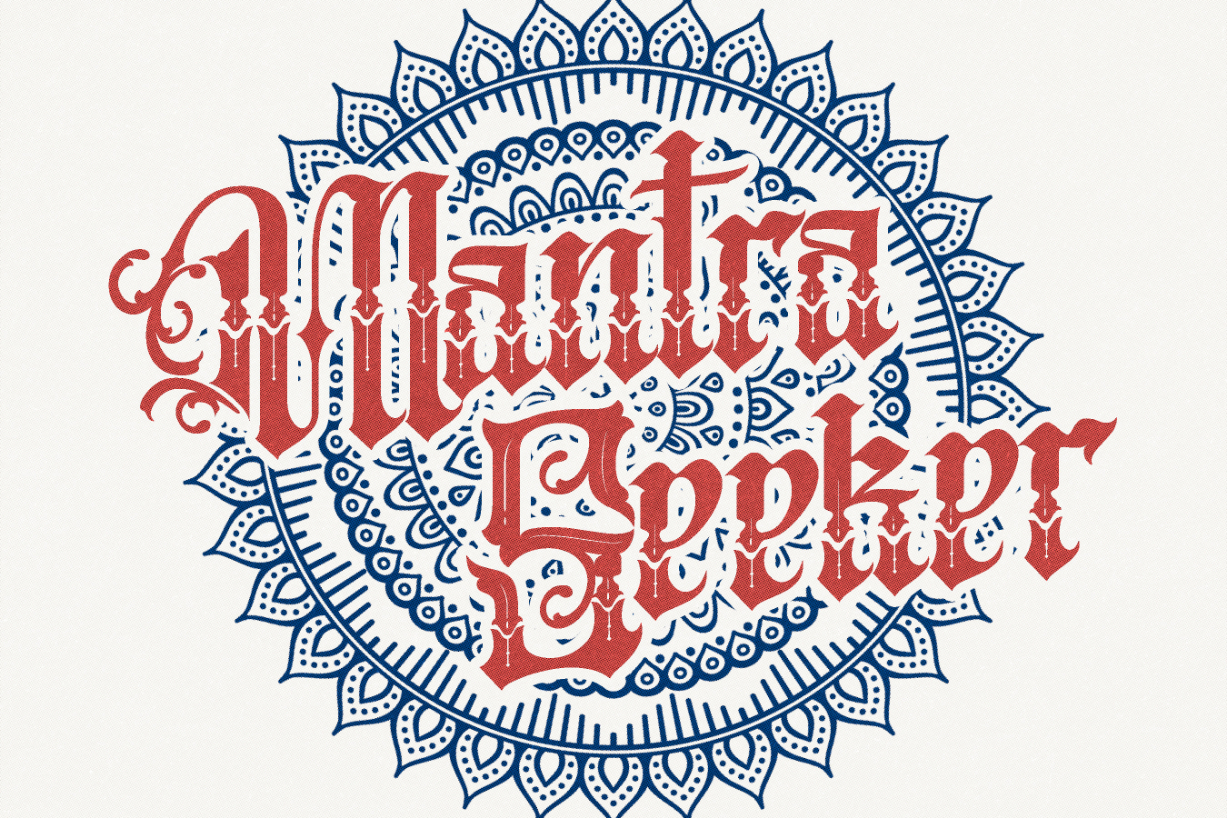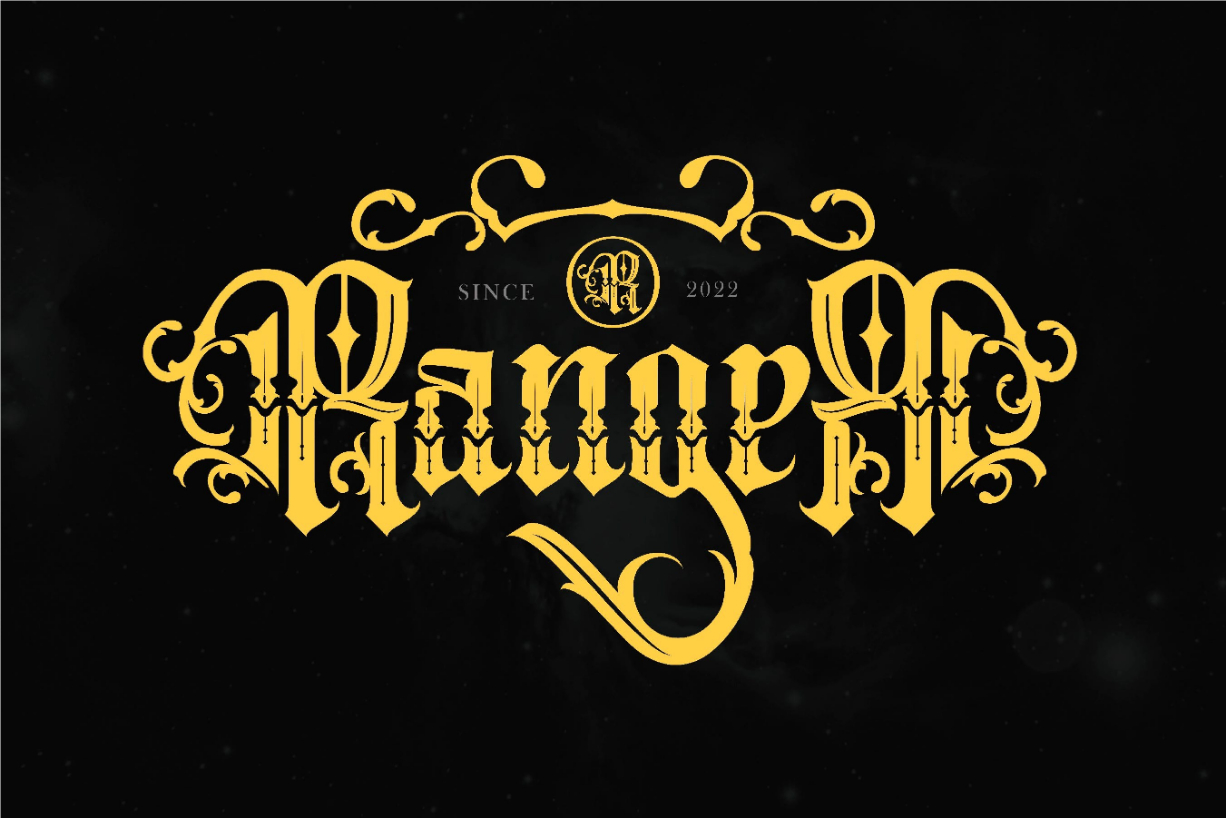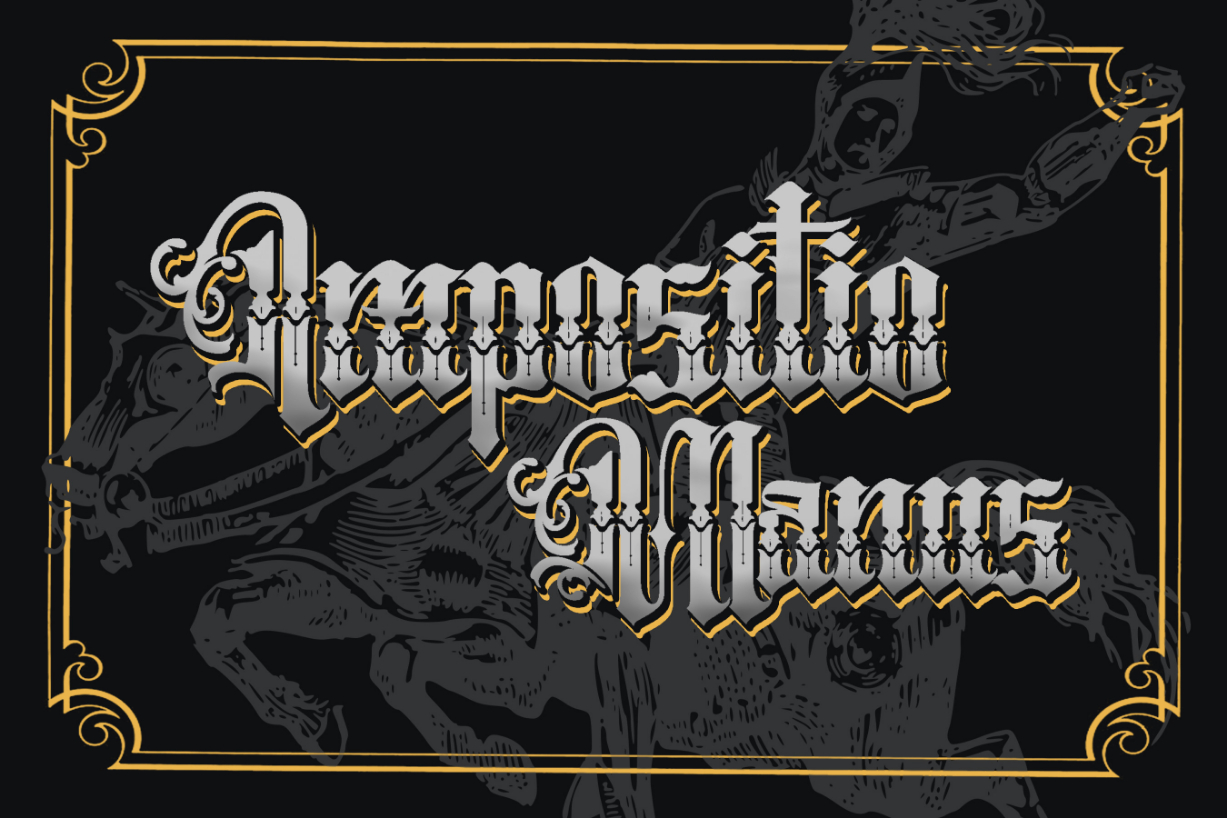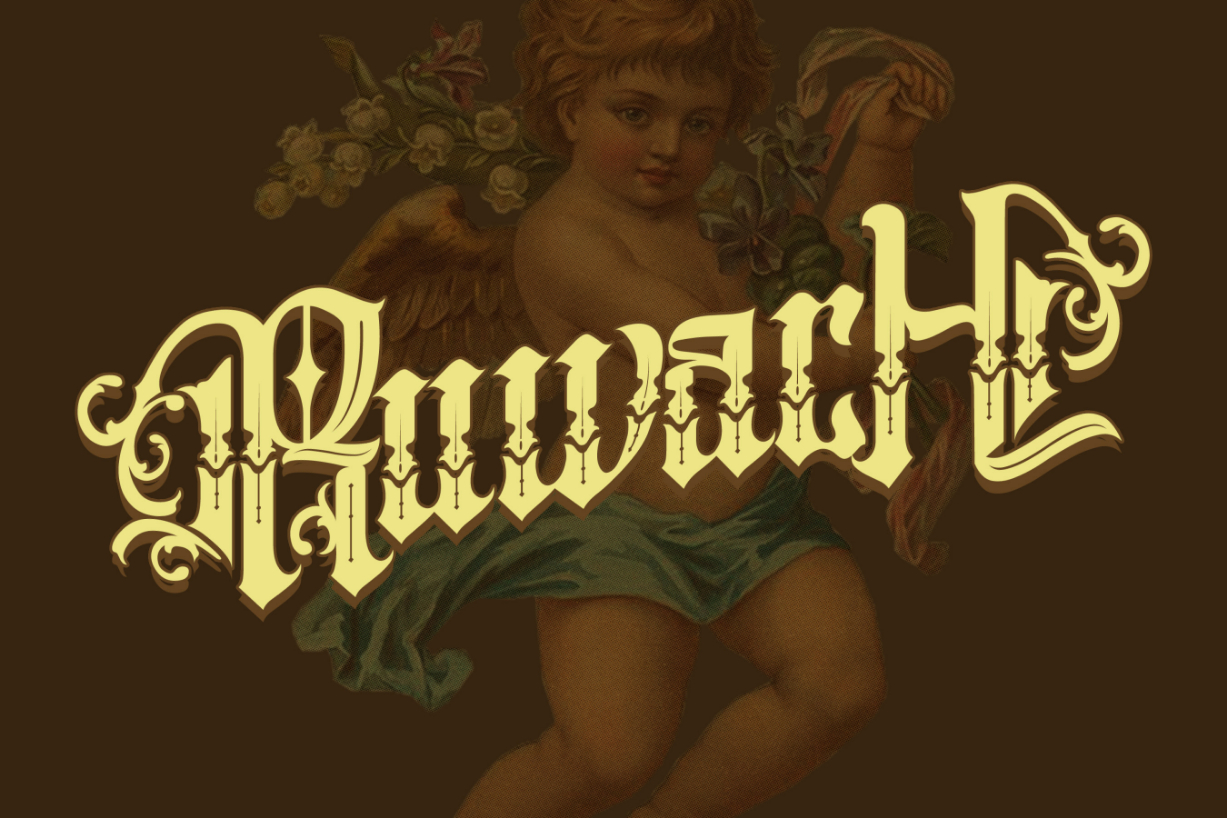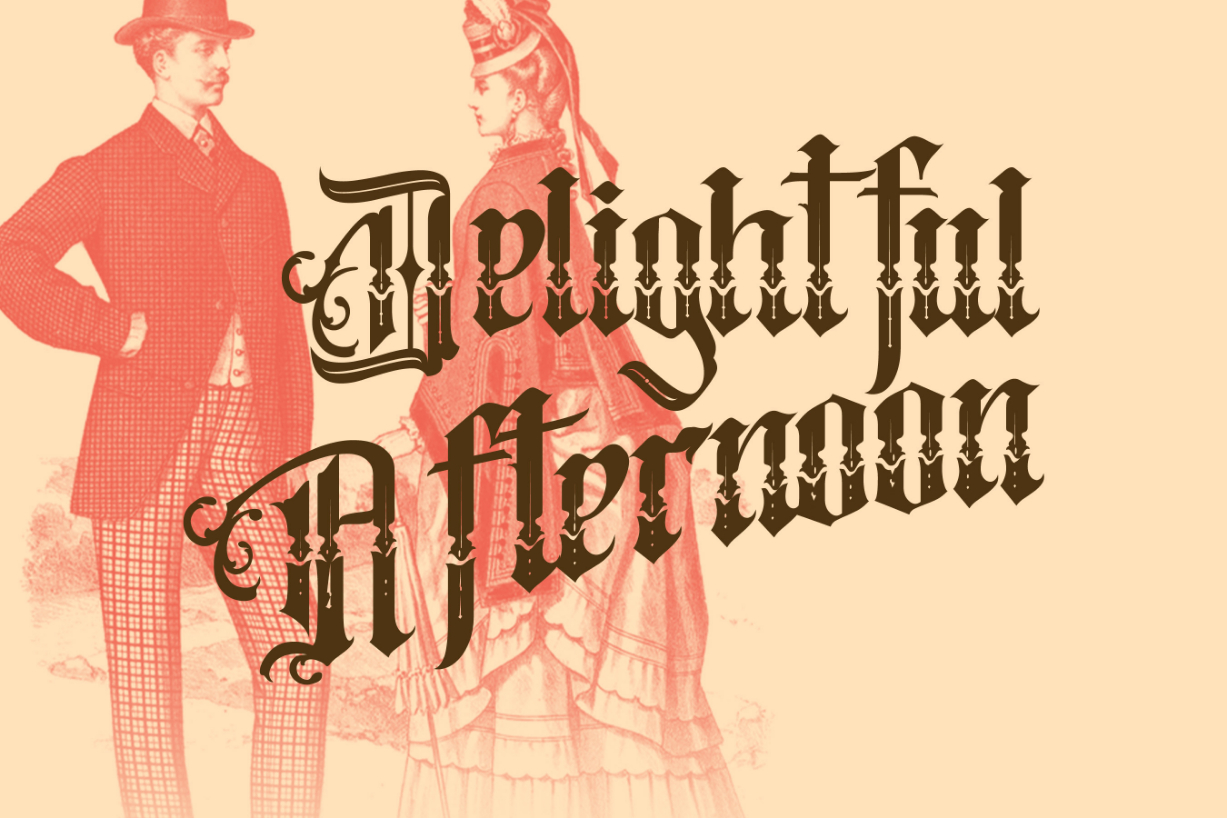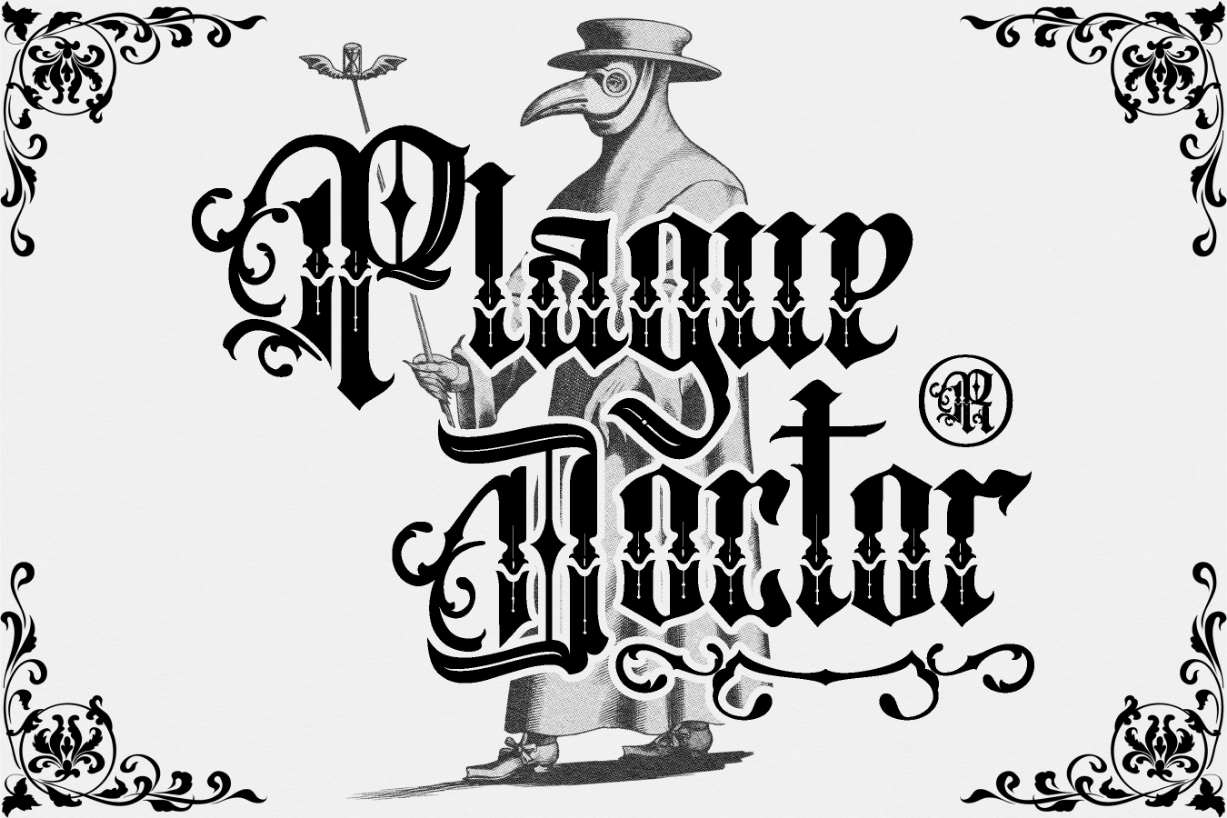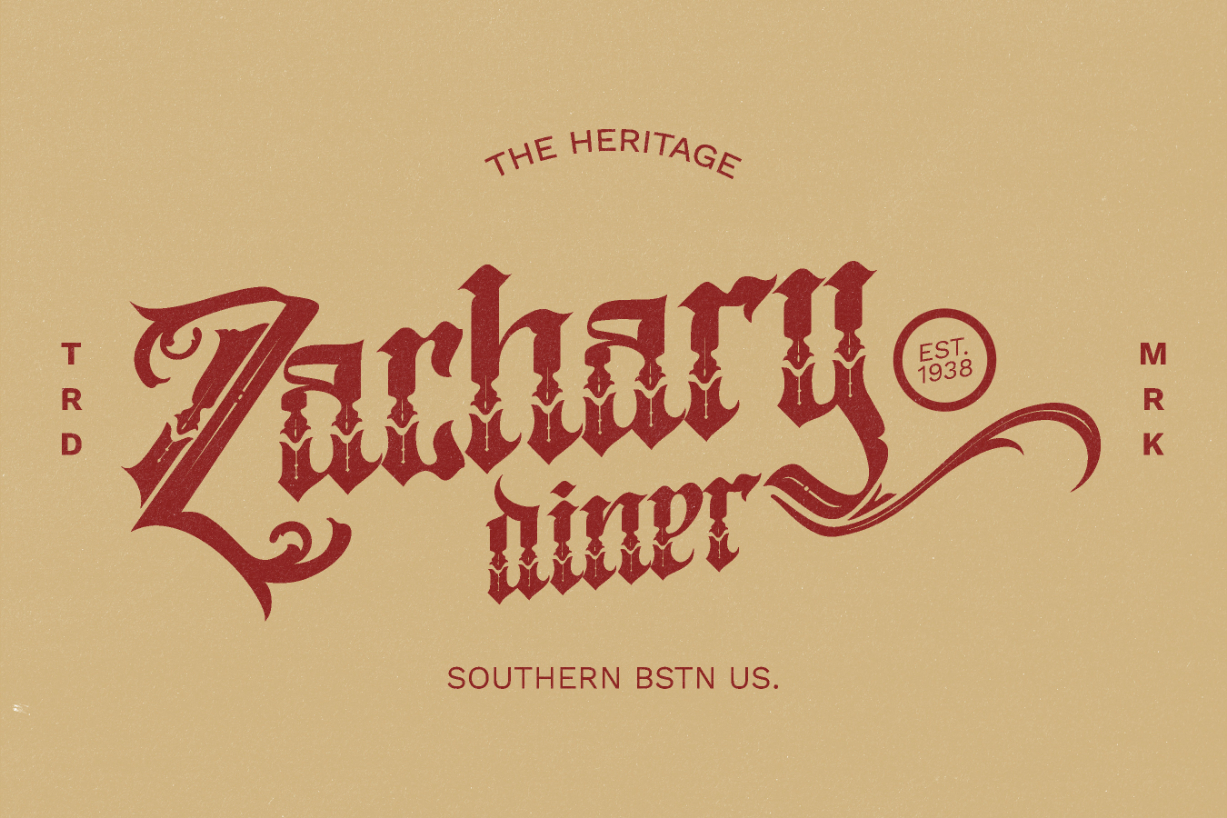
Crayscale Font
About Crayscale Font
Introducing “Crayscale” – a captivating blackletter Victorian font that exudes elegance and timeless charm. Inspired by the ornate lettering styles of the Victorian era, Crayscale is meticulously crafted to bring a touch of vintage sophistication to your designs. With its intricate details and distinctive Gothic-inspired shapes, Crayscale captures the essence of traditional blackletter typography while adding a modern twist. Its sharp, angular lines combined with ornamental flourishes create a harmonious balance between the past and the present.